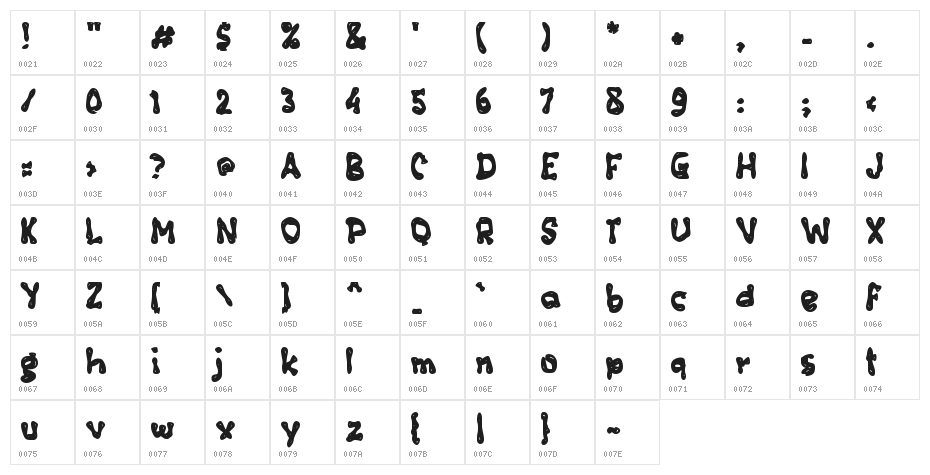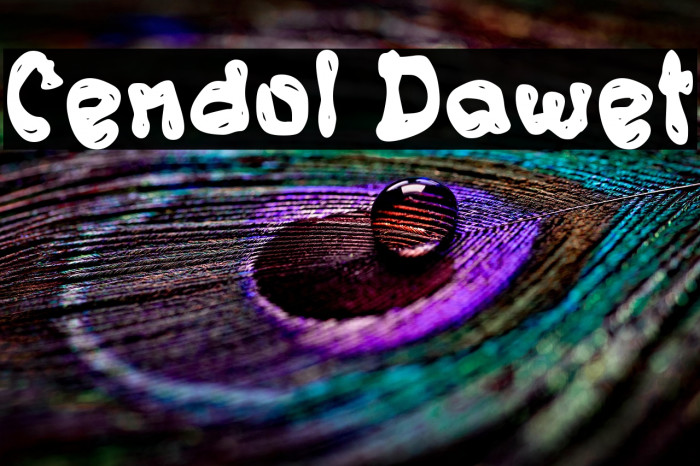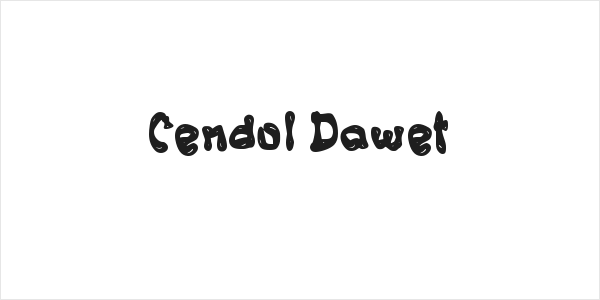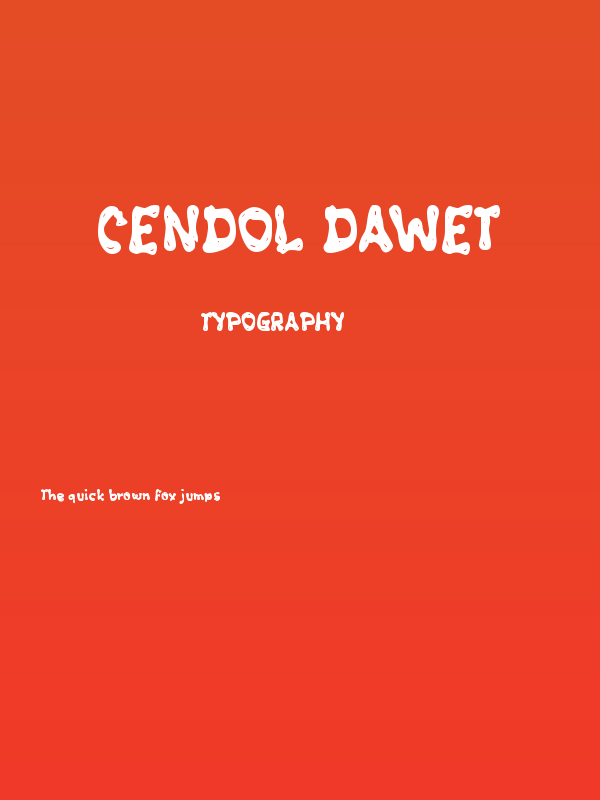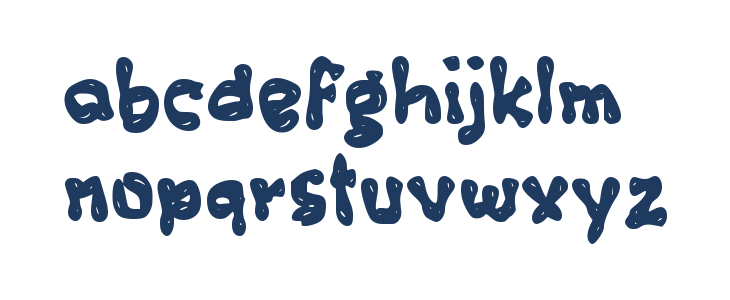
Cendol Dawet Font
Cendol Dawet Description
This playful and bold font features a unique, organic style with wavy, irregular strokes that give it a hand-drawn appearance. The characters are thick and rounded, with a whimsical, almost cartoonish quality. The uppercase and lowercase letters maintain a consistent style, with the lowercase being slightly smaller and more compact. Numbers and special characters follow the same design principles, ensuring a cohesive look across all elements. The font's distinctiveness makes it stand out, making it ideal for creative and informal projects.
| Proposed Projects | Ideal for children's books, playful branding, posters, and creative invitations. |